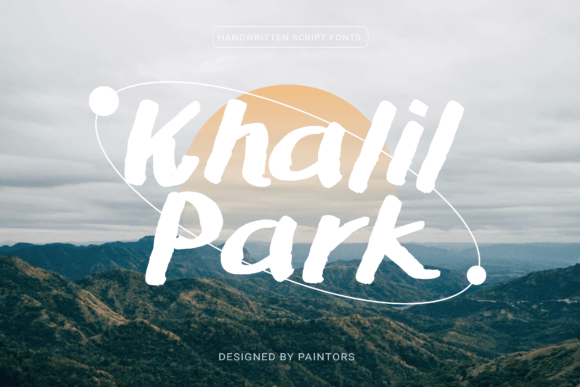
Khalil Park Font: Embroider Your Creativity with Delicate Strokes of Elegance
Journey into the realm of exquisite typography with Khalil Park Font, an enchanting script that mirrors the beauty of handcrafted calligraphy. This elegant font family, crafted by PAINTORS, is a true gem for artists, designers, and creative enthusiasts seeking to elevate their projects with a touch of sophistication.
Immerse yourself in the world of hand embroidery, where Khalil Park Font flourishes as a natural choice. Its delicate strokes evoke the patience and artistry of skilled needleworkers, transforming your digital creations into tangible works of art. The font's flowing lines intertwine harmoniously, resembling the intricate stitches that bring embroidery to life.
Whether you're creating personalized greeting cards, heartfelt invitations, or enchanting logos, Khalil Park Font lends its timeless charm to every design. Its versatility extends to a wide range of projects, including social media graphics, website designs, and even marketing materials. The font's captivating presence commands attention, leaving an indelible mark on your audience.
Step into the world of Khalil Park Font and let your creativity bloom. Embrace the charm of handmade beauty and infuse your projects with a touch of elegance that speaks volumes. Let your designs blossom with the grace and refinement that only Khalil Park Font can provide.
Unlock the limitless possibilities of this exquisite script and embark on a creative journey where beauty and functionality intertwine. Elevate your projects to new heights with Khalil Park Font, and let your imagination take center stage.